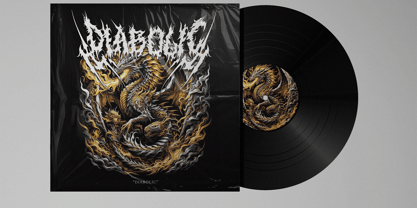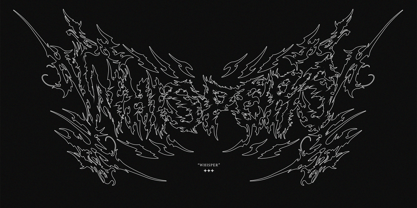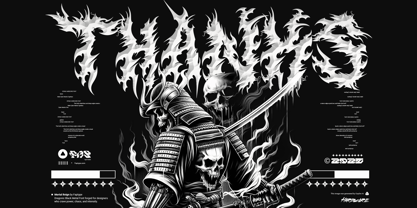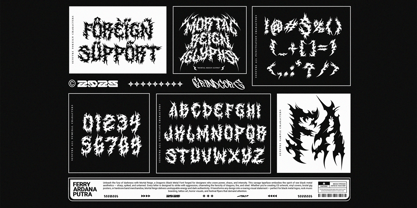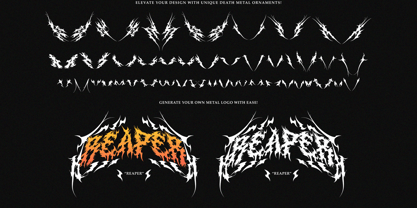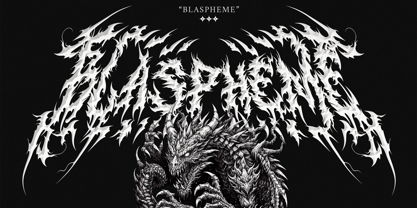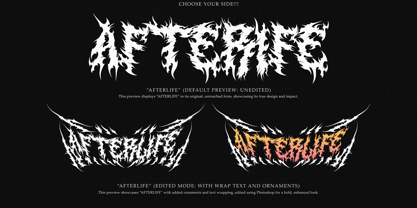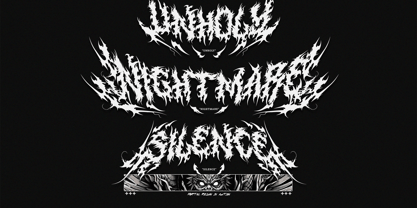
Mortal Reign
The Mortal Reign Font Family was designed by Ferry Ardana Putra and published by Ferry Ardana Putra. Mortal Reign contains 1 styles. More about this family
Unleash the fury of darkness with Mortal Reign Black Metal Font, a dragonic typeface forged for designers who crave power, chaos, and intensity. This savage display font embodies the spirit of raw black metal aesthetics — sharp, spiked, and untamed. Every letter strikes with aggression, channeling the ferocity of dragons, fire, and steel. Whether you’re creating CD artwork, vinyl covers, brutal gig posters, or hardcore band merchandise, Mortal Reign delivers unstoppable energy and dark authenticity. It transforms any design into a roaring visual statement — perfect for black metal logos, rock music branding, tattoo art, horror visuals, and festival flyers that demand attention. ⚔️ Why Choose Mortal Reign Black Metal Font? Mortal Reign captures the essence of underground rebellion. With its chaotic yet structured design, it balances brutality and readability, making it ideal for both display and logo work. Every stroke breathes life into your artwork, turning text into pure visual aggression. This font isn’t just a typeface — it’s a declaration of dominance in the extreme design world. From death metal to dark fantasy, Mortal Reign Black Metal Font fits projects that need a fearsome and unforgettable visual impact. 🔥 Perfect for Extreme Artwork Album & Vinyl Covers Black Metal Band Logos Rock & Hardcore T-Shirts Festival Posters & Dark Merchandise Horror & Fantasy Artwork 🔥 Perfect For: Album & Vinyl Covers Black Metal Band Logos Rock & Hardcore T-Shirts Festival Posters & Dark Merchandise Horror & Fantasy Artwork Mortal Reign Features Full set of Uppercase Numbers and Punctuation Multilingual Language Support PUA Encoded Characters OpenType Features +372 Total Glyphs +141 Death Metal Ornaments included
Mortal Reign